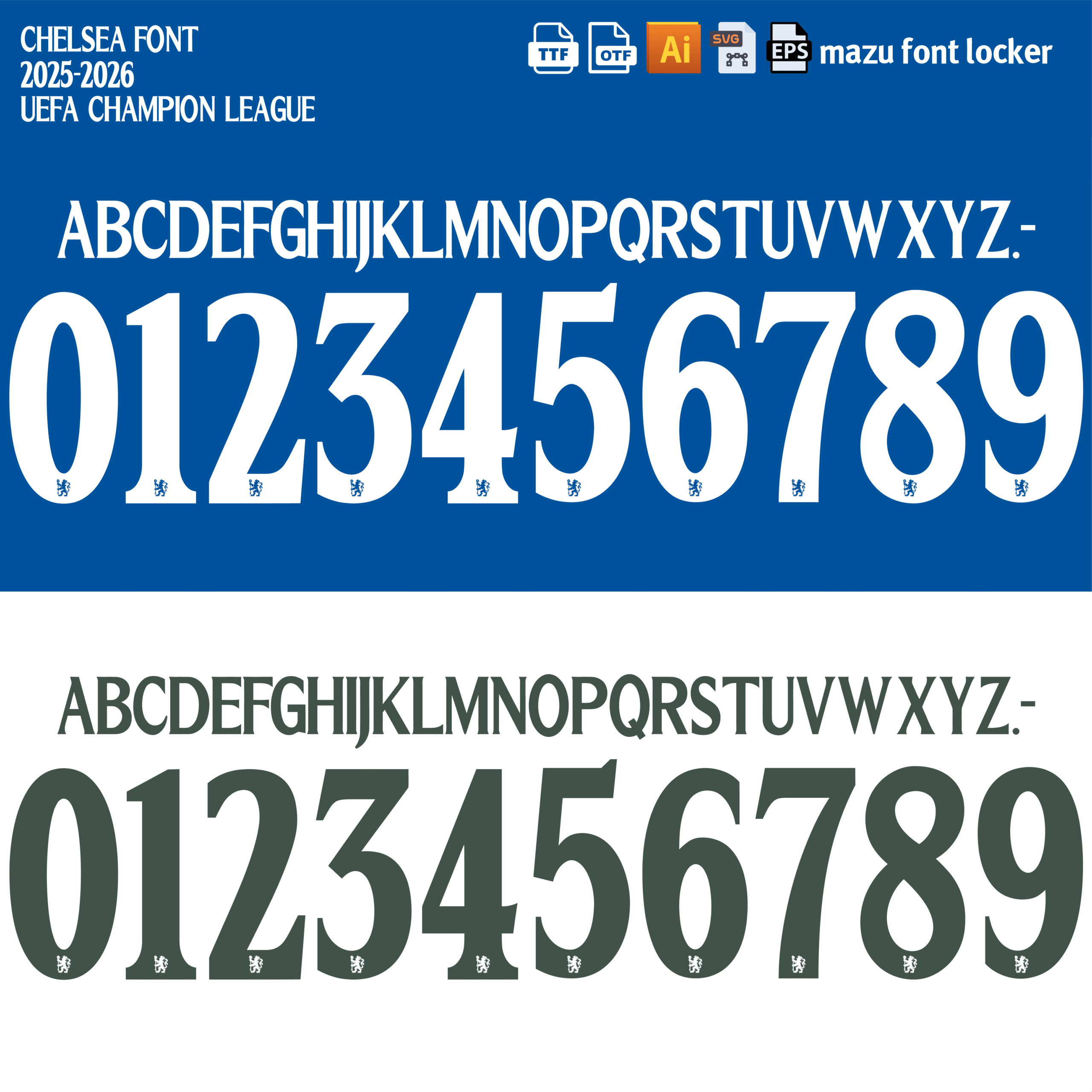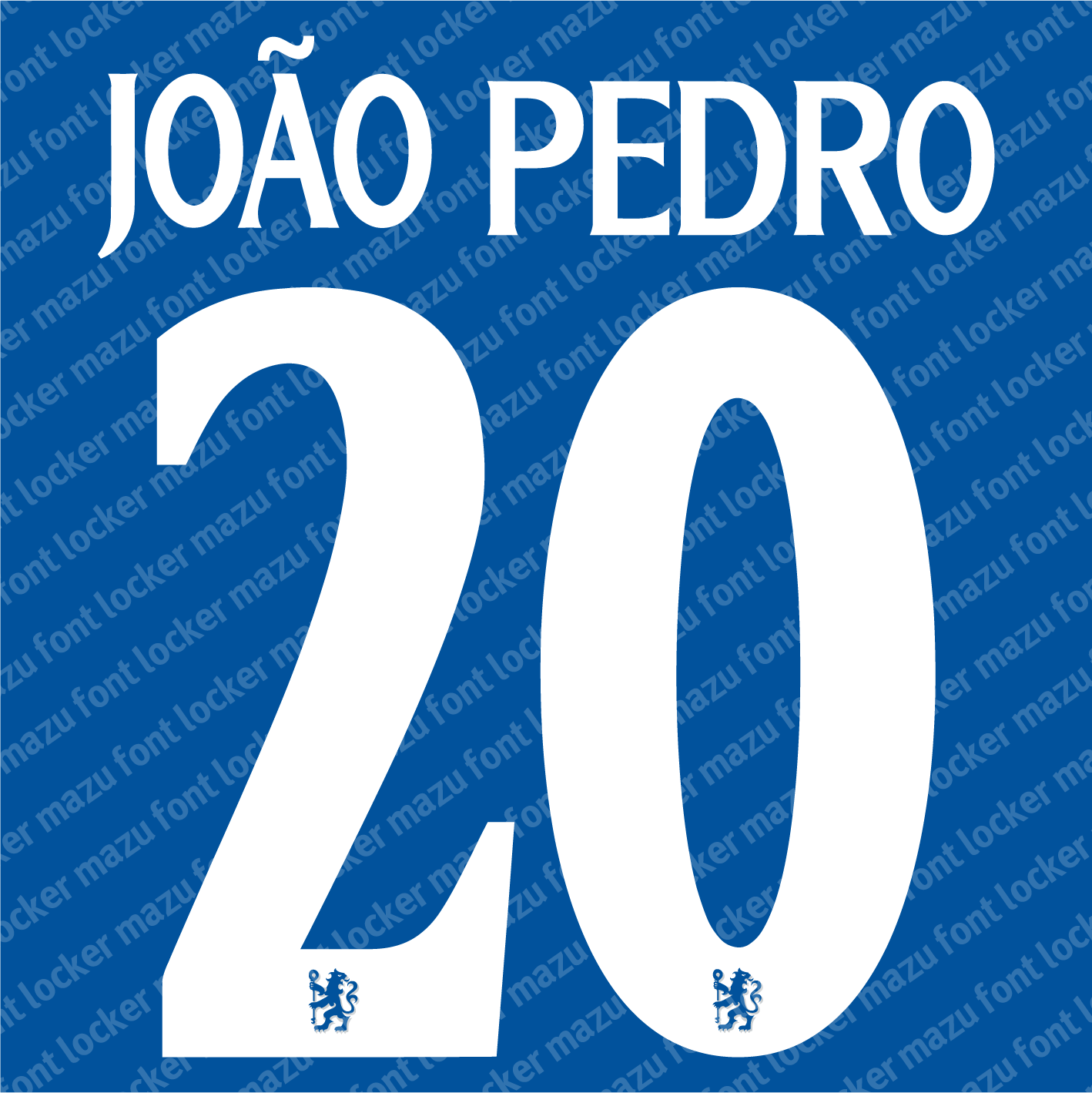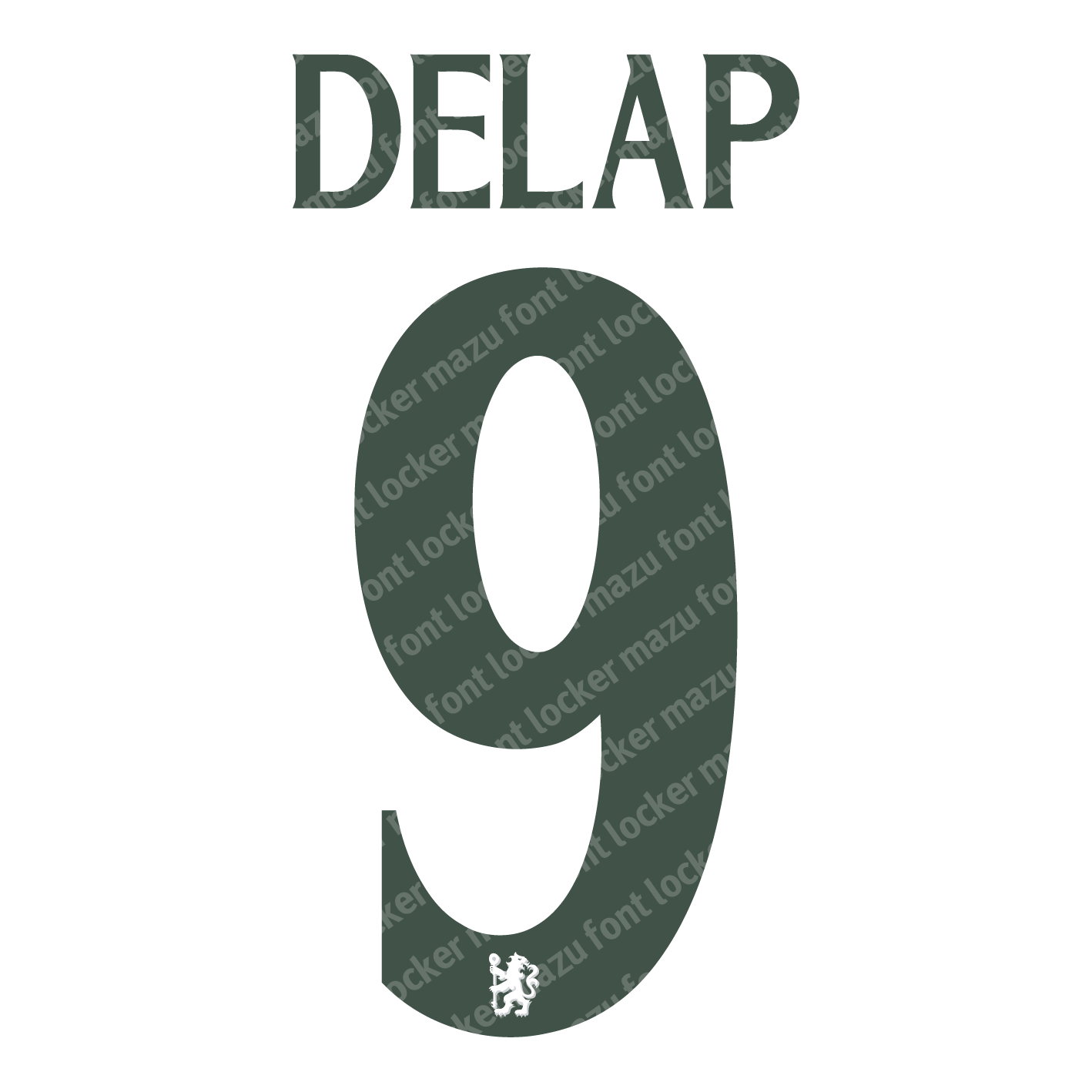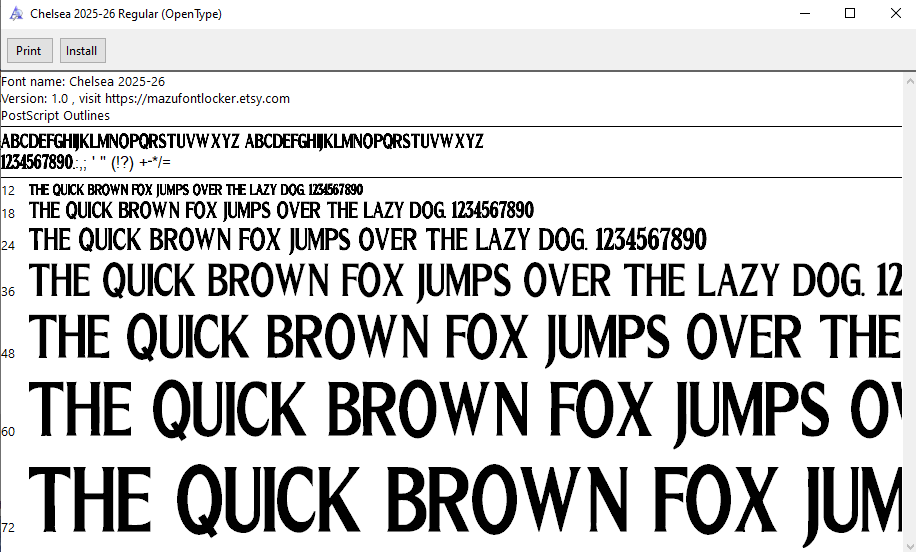
Chelsea 2025-26 Font Vector
Chelsea 2025-2026 font, names and numbers, fully editable VECTOR file for customization. Complete design with the Chelsea 2025-2026 numbering and lettering for the Cup and Champion League Match.